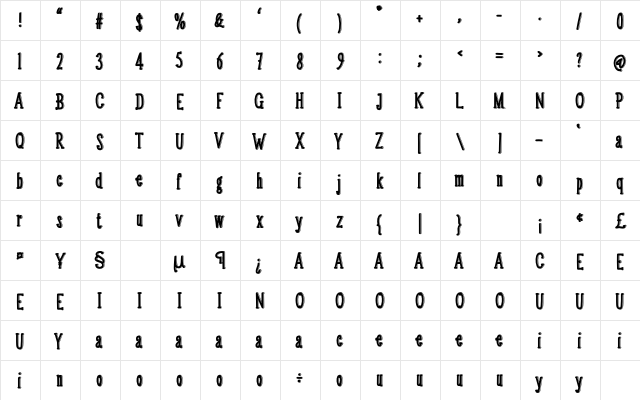
Cobblestone Regular
Design Context for Cobblestone Typeface
Cobblestone offers clean, dependable letterforms without strong stylistic allegiance, making it a practical choice for designers who need flexibility.
Pro Tip: Use Cobblestone in both headline and body roles to test its range before committing to a single application.